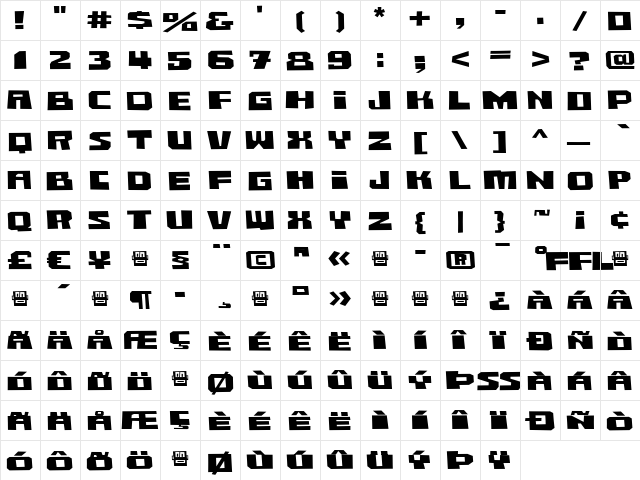
Comrade-BoldExtended Regular
| Designer | Jim Parkinson |
Design Context for Comrade-BoldExtended Typeface
Comrade-BoldExtended is a composed and adaptable typeface that performs quietly and consistently across a wide range of design contexts. Its bold stroke weight gives it real presence on the page.